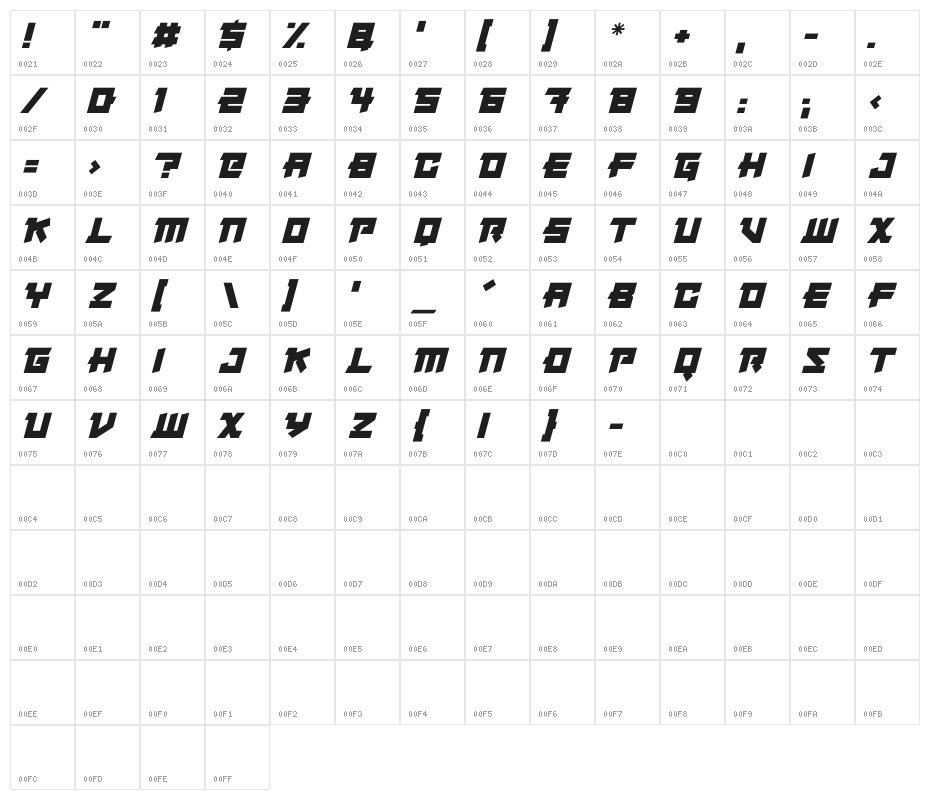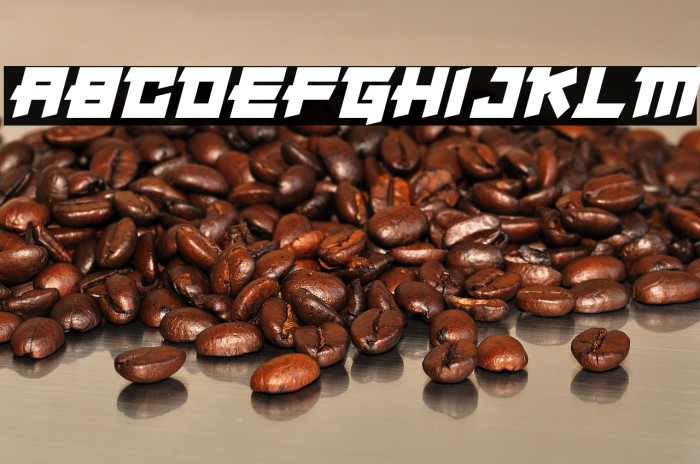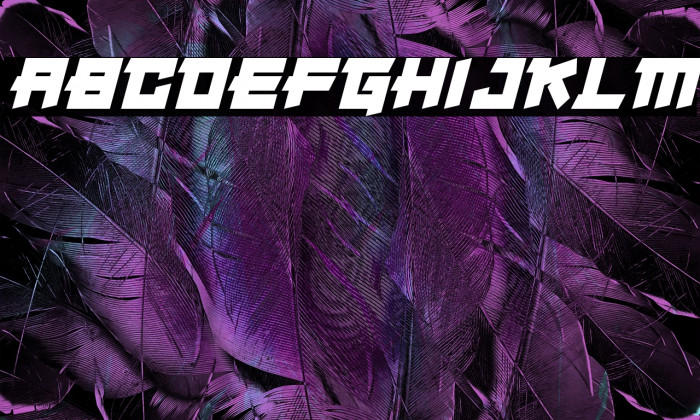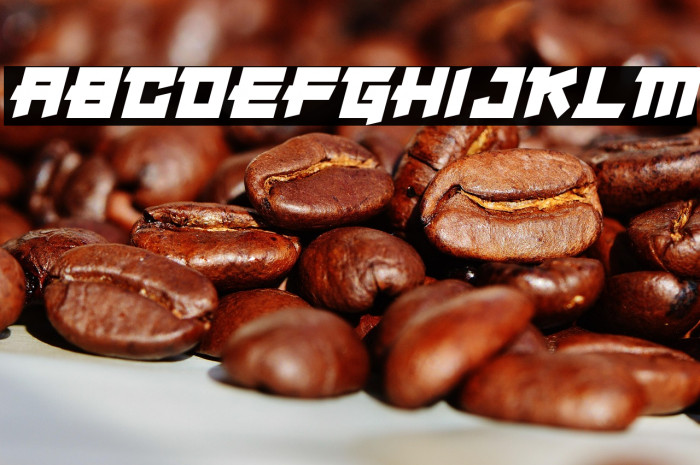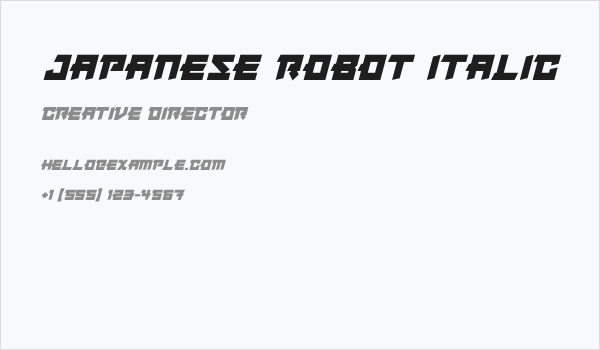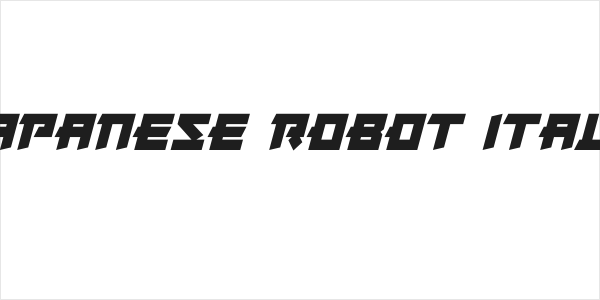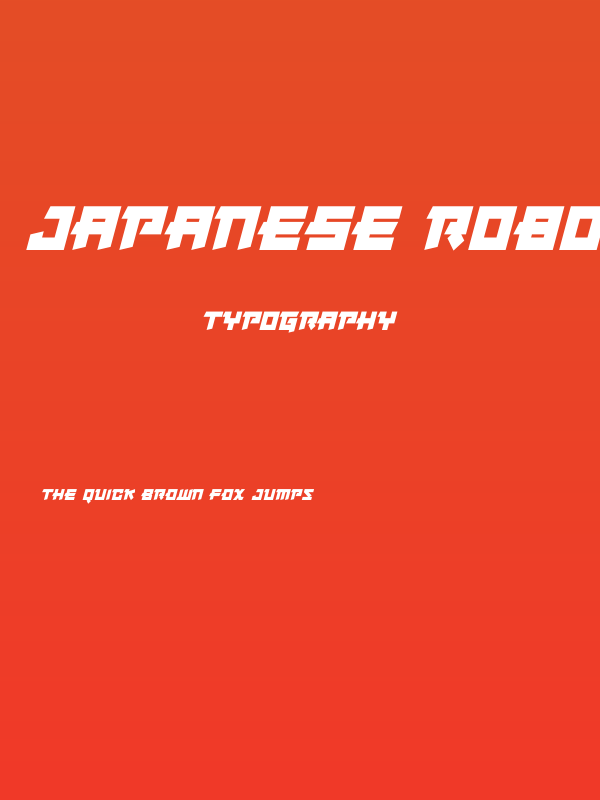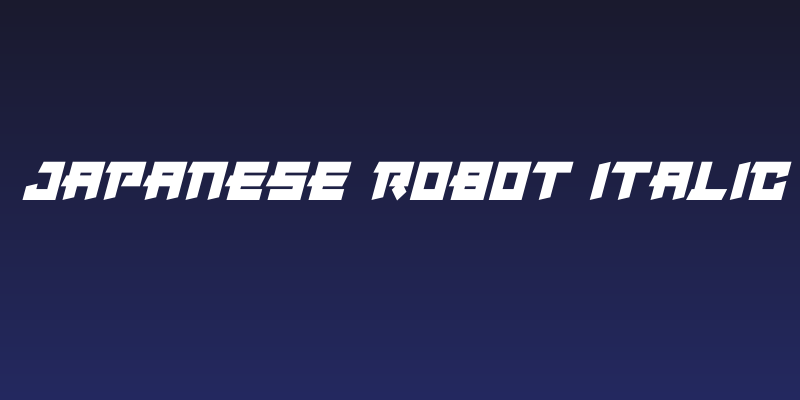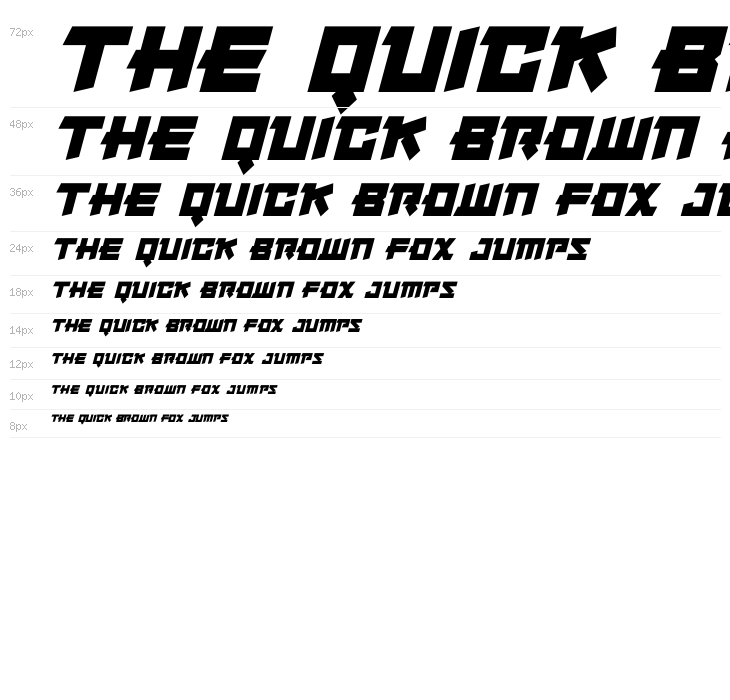
Japanese Robot Italic Font
Japanese Robot Italic Description
This font features a bold, futuristic design with a strong geometric influence. The characters are sharply angled and italicized, giving a sense of movement and speed. The strokes are thick and consistent, creating a powerful visual impact. The design is reminiscent of robotic or technological themes, with a modern twist. The uppercase and lowercase letters maintain a uniform style, and the numerals and special characters are crafted to match the overall aesthetic. This font is ideal for projects that require a dynamic and cutting-edge appearance.
Proposed ProjectsIdeal for technology branding, sci-fi posters, video game titles, and futuristic event flyers.